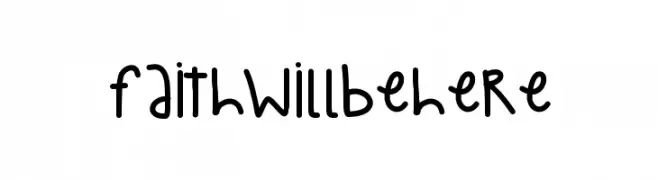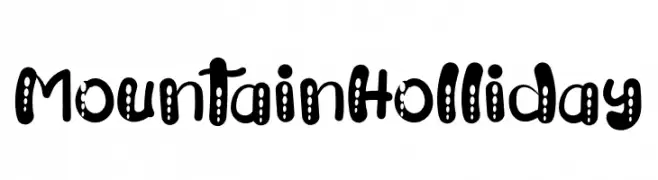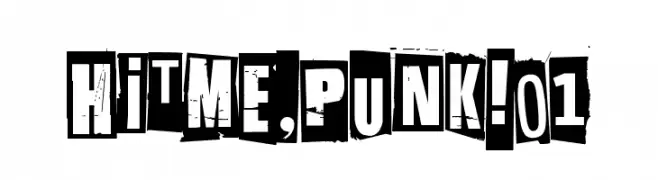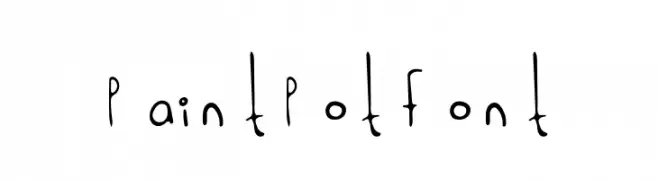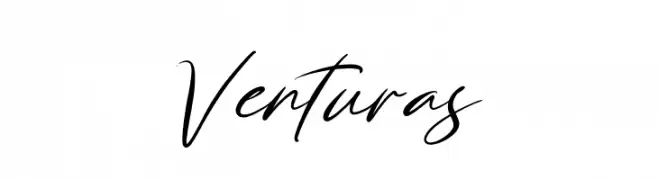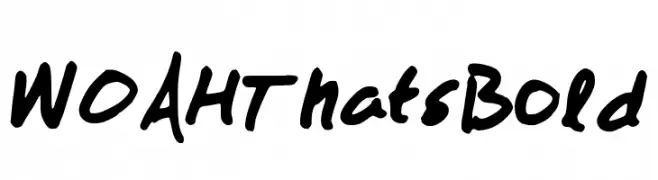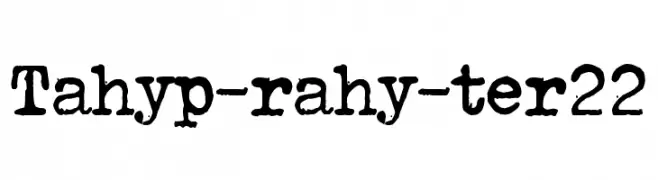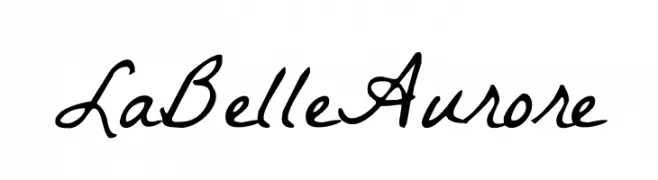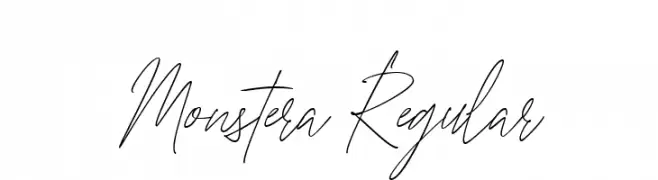
A playful handwritten font with rounded, casual characters.
A playful, bold font with dotted patterns and a hand-drawn feel.
A bold, collage-style font with a punk rock, DIY aesthetic.
A playful, hand-drawn font with a whimsical and informal style.
Elegant handwritten script font.
A bold, geometric font with a modern and structured design.
A bold, handwritten font with a playful and energetic style.
A vintage, typewriter-style font with a distressed, monospaced look.
A bold, geometric font with a futuristic and industrial style.
A fluid, cursive handwritten font with elegant, flowing lines.
A whimsical, floral-adorned script font perfect for creative projects.
Woodwind fingering chart graphic, not a text font.
An elegant, flowing script font with a natural handwriting style.
A sleek, modern italic font with clean lines and a sophisticated style.
A dynamic, expressive handwritten font with fluid strokes and artistic flair.
A bold, geometric font with strong, angular lines and a modern aesthetic.
A playful, hand-drawn font with irregular strokes and a casual feel.
A bold, brush-style font with dynamic, rebellious strokes.
A bold, futuristic font with geometric, angular characters.
A bold, futuristic font with a double-line outline and geometric structure.
A bold, decorative font with intricate diamond embellishments.
A futuristic, angular font with a sleek, technical design.
Hand-drawn, cartoonish decorative font with circular character frames.
A whimsical and decorative font with playful, animated characters.
A futuristic, angular italic font with a sci-fi aesthetic.
A modern, rounded typeface with clean lines and balanced spacing.
A bold, playful handwritten font with heart-shaped accents and smooth curves.
Hand-drawn woodcut-style medical icon set.
A modern, artistic font with parallel line design and geometric shapes.
A modern, geometric font with bold, clean lines and a futuristic aesthetic.
A playful, handwritten font with dynamic strokes and a whimsical style.
A playful font with letters inside caramel apple shapes, perfect for festive designs.
An elegant, bold italic font with high contrast and classic styling.